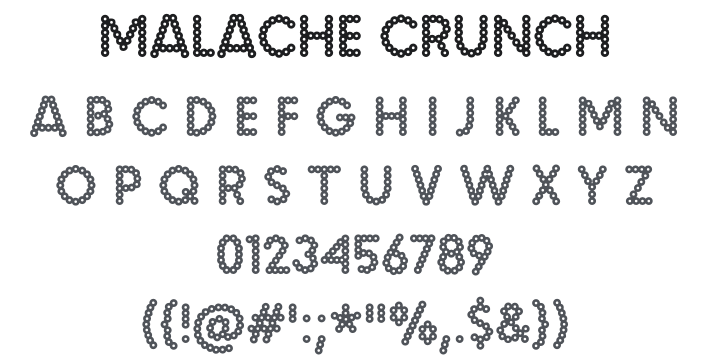
Malache Crunch Font
About Malache Crunch
Malache Crunch is a pierced display headliner where every letterform is constructed from interlocking rings and chain-like loops — think washers, donuts, and jewellery links assembled into an alphabet. The result is decorative, tactile, and unlike anything conventional. Perfect for biker culture branding, rock and metal posters, jewellery or accessories design, novelty headlines, and any project needing bold, unconventional industrial-ornamental flair.